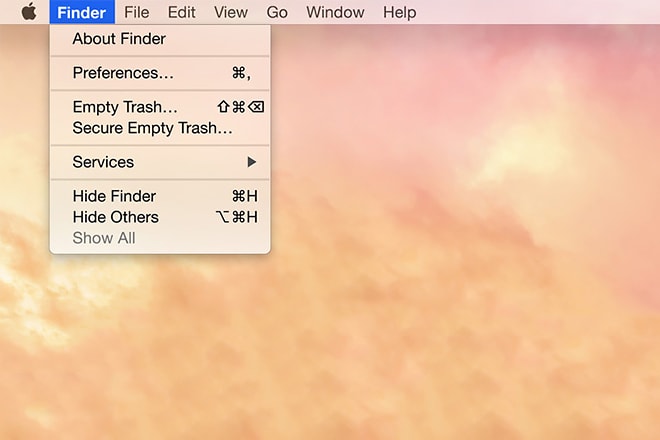
Apple Changes OS Font for First Time Since 2001
Among the many enhancements to be featured in Apple’s forthcoming Yosemite operating system, the Mac world has focused its opinions on the change in font that will come later this fall. After 13 years of using Lucida Grande, Apple has decided to switch to the iconic Helvetica Neue script to bring uniformity across its product line. Seamless integration between all Apple devices was something Tim Cook stressed during his keynote speech at yesterday’s WWDC in San Francisco, so it only makes sense to mirror their appearances as much as possible. For the Mac users out there, what are your thoughts on this change? What Yosemite feature are you looking forward to the most?